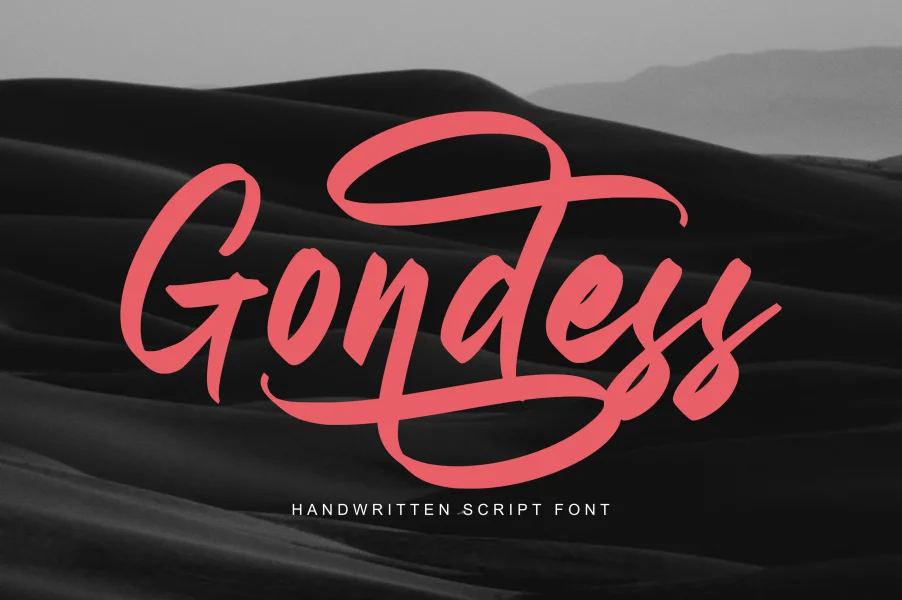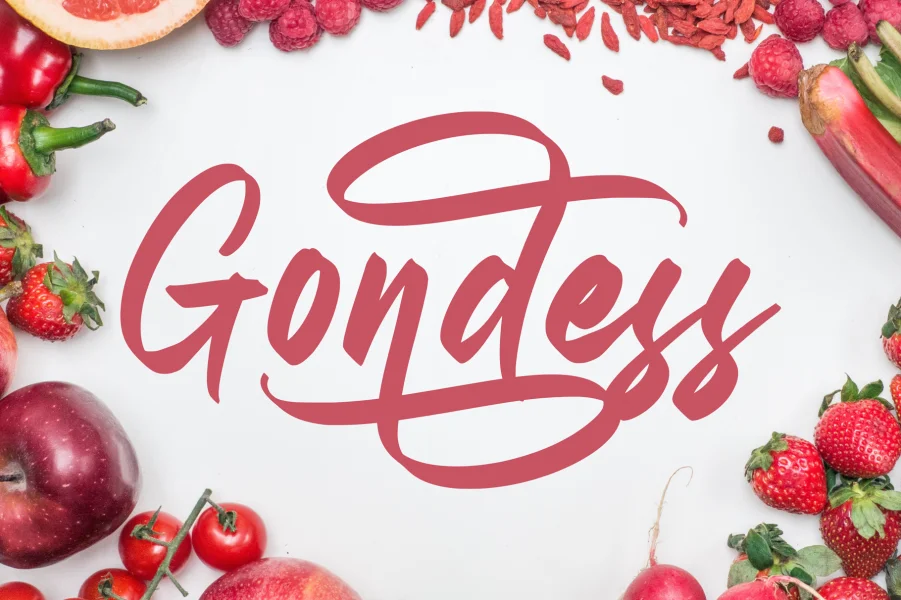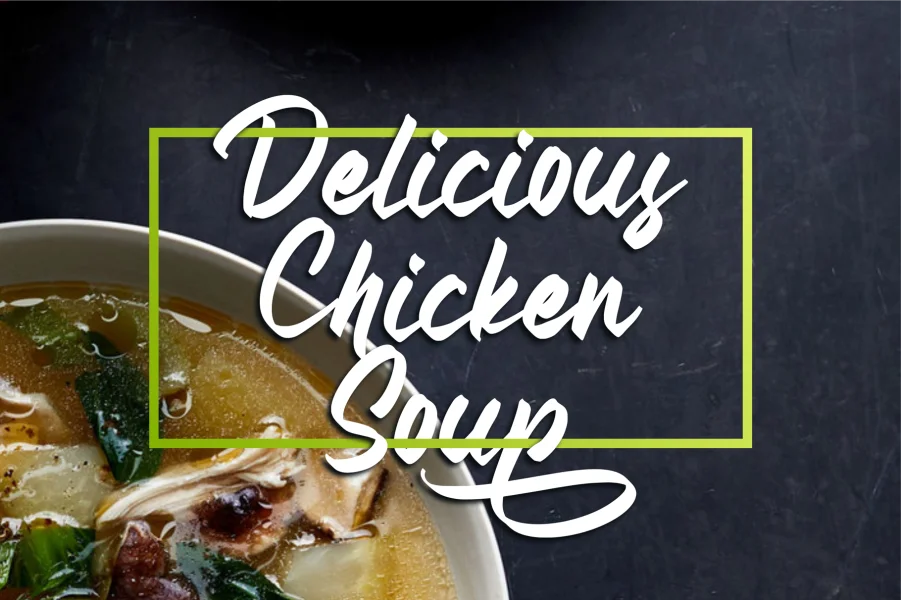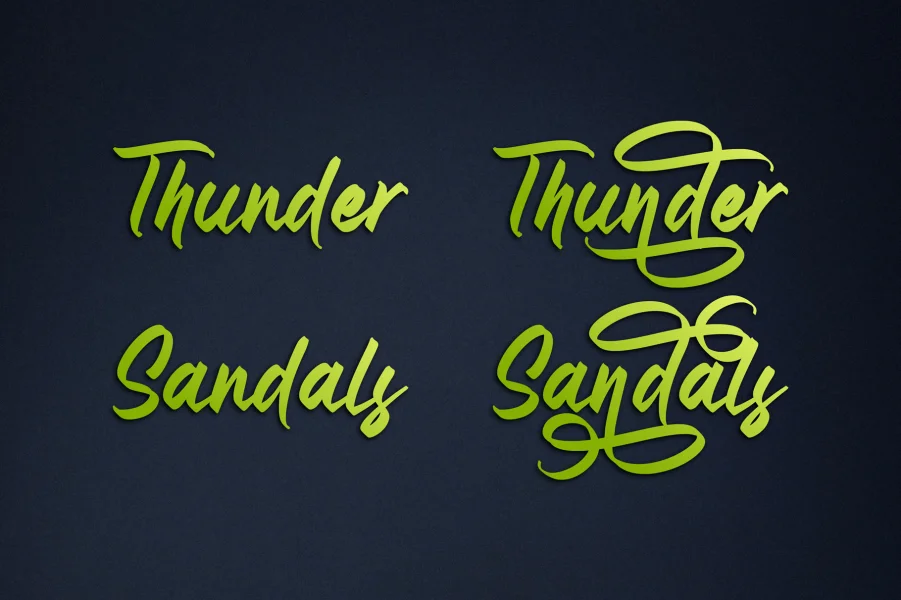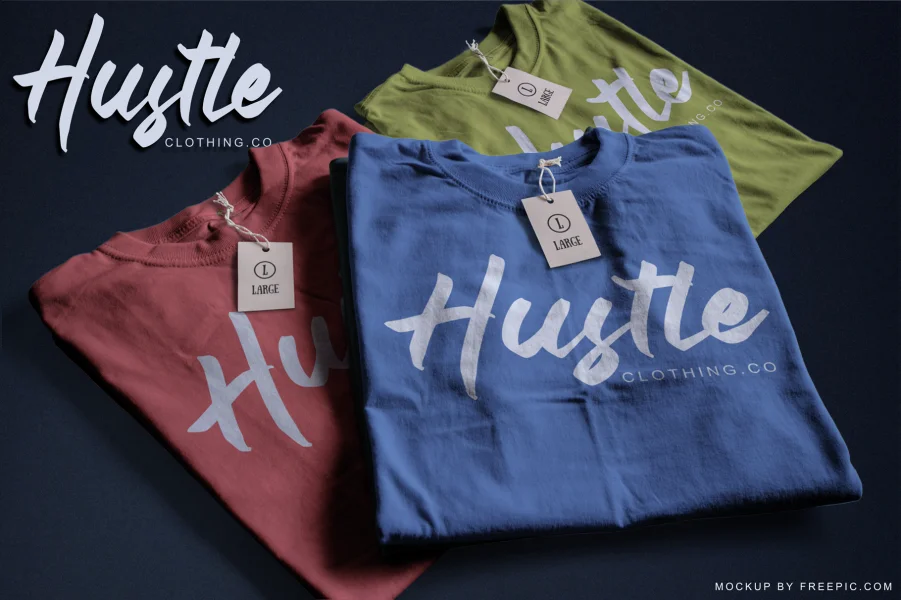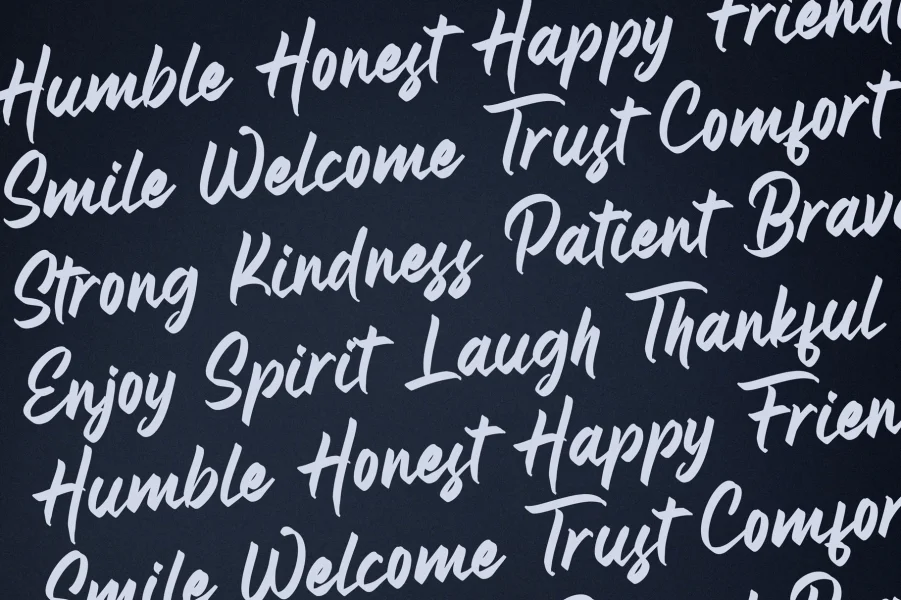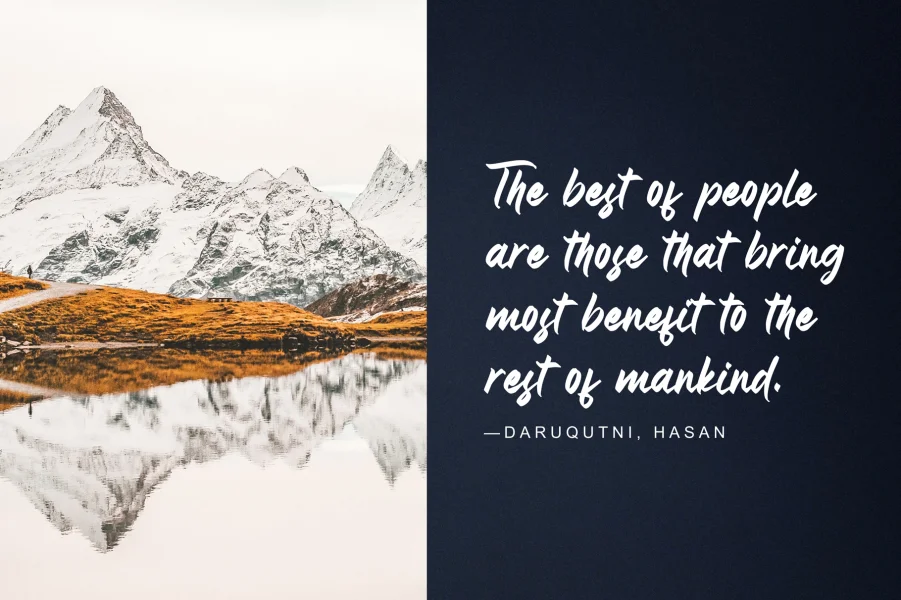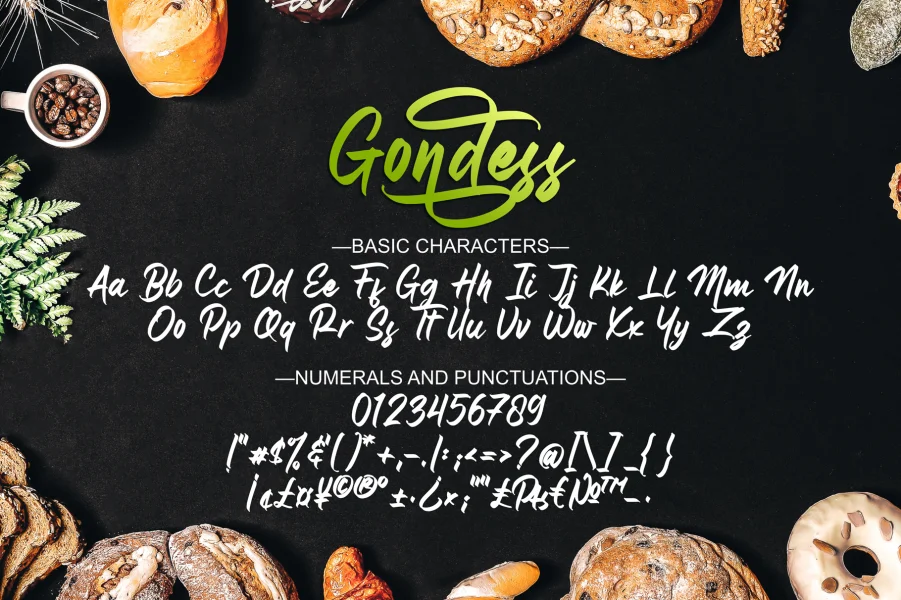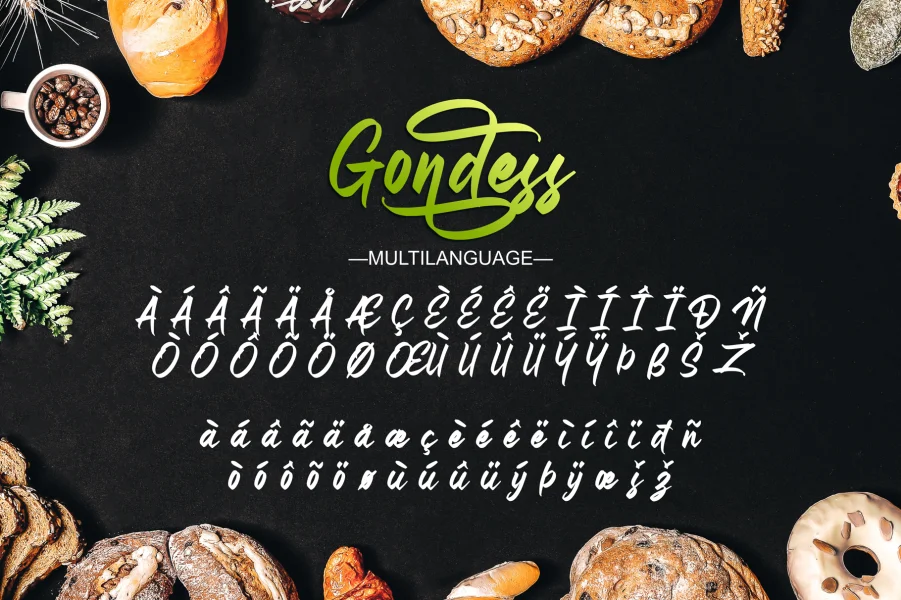
Gondess! A handwritten script font with 4 lowercase alternates style. Gondess font is perfect for short typography, logotype, apparel, T-shirt, Hoodie, product packaging, quotes, flyer, poster.
1. Uppercase and lowercase characters
2. Supports international languages
3. Numerals, punctuations
6. Multilingual support